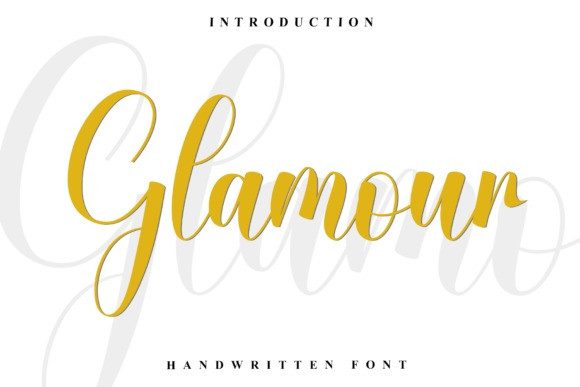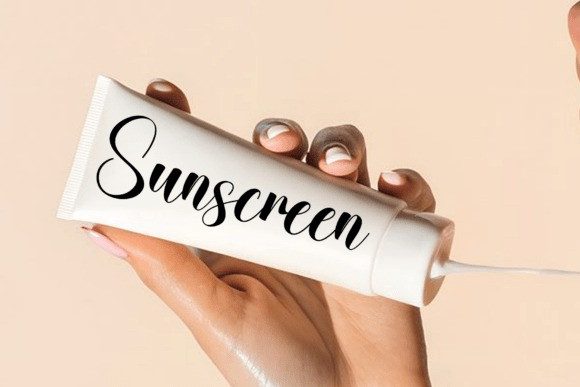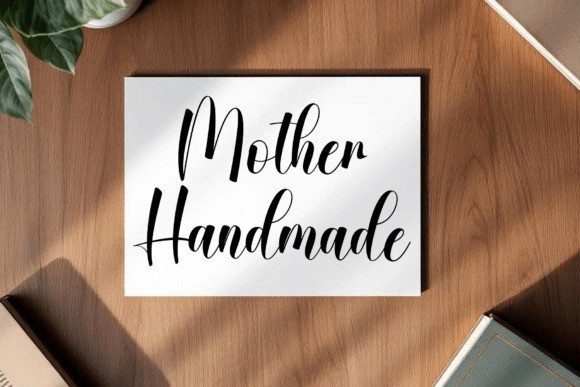
Glamour Script Typeface is an elegant handwritten script font that radiates sophistication and charm.With its flowing curves, delicate strokes, and refined style, Glamour is perfect for projects that demand beauty and grace. Whether you’re designing wedding invitations, luxury branding, fashion editorials, or high-end packaging, this font delivers an upscale, polished feel. The letterforms maintain excellent readability while preserving an organic, hand-lettered quality.
Glamour combines the timeless appeal of calligraphy with a modern touch, making it a versatile choice for both classic and contemporary designs.